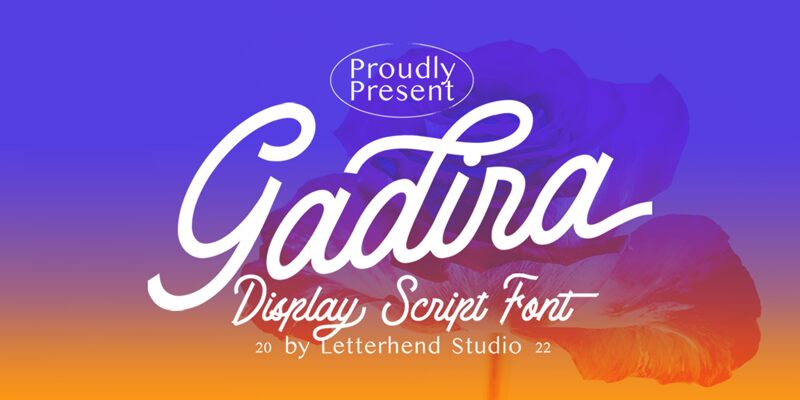
Gadira font by Letterhend Studio embodies the charm of a handwritten style, exuding elegance and personality. Its flowing, cursive strokes capture the spontaneity of penmanship, making it an excellent choice for projects requiring a personal touch. The bold letters stand out with confidence, enhancing readability while maintaining artistic flair.
This free font is ideal for creating eye-catching logos, invitations, and social media graphics. Gadira's harmonious curves add sophistication to any design, from wedding stationery to boutique branding.